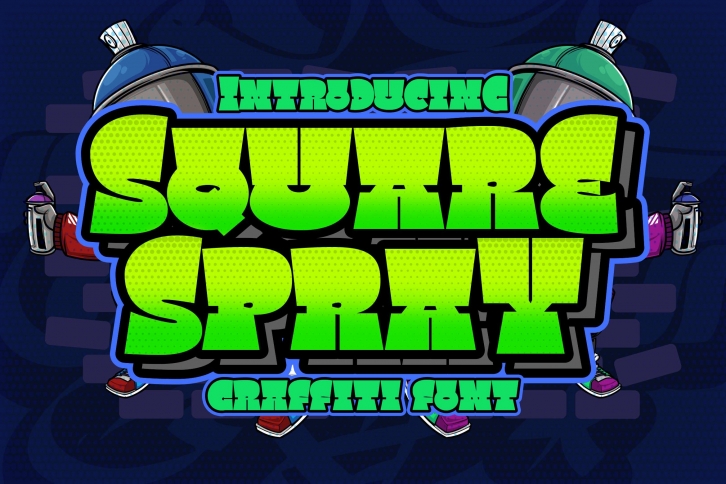
Square Spray Graffiti is a great font that was designed by Blankids. Imagine the amount of combinations you can create using this font! The archive is 18.89 MB and it was released on April 15, 2021. Square Spray Graffiti looks beautiful on wedding invitations, greeting cards, logos, posters, labels, t-shirt designs, logos, business cards and is perfect for use in ink or watercolor works, fashion, magazines, packaging and food menus, children's books and more!